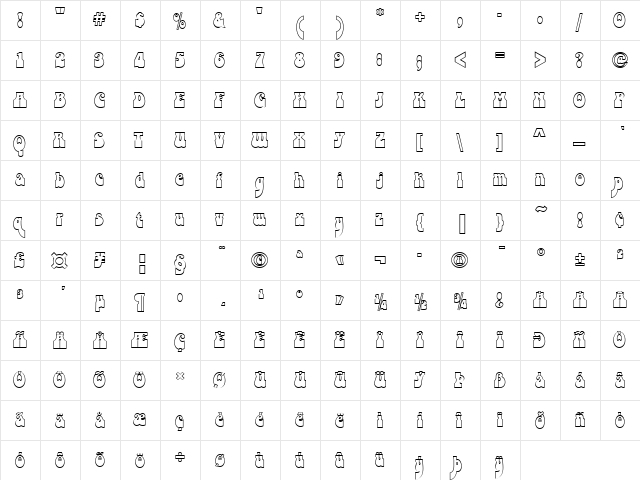
Bottleneck Outline P Regular
Design Context for Bottleneck Outline P Typeface
Bottleneck Outline P brings ornamental detail and strong personality to headlines and identities, where visual impact matters more than quiet functionality.
Font Pairing: Pair with a clean neutral sans-serif for body copy to let Bottleneck Outline P's character lead without overwhelming the composition.
Pro Tip: Use Bottleneck Outline P exclusively at display sizes — it was designed to be seen, not read at length. Let a neutral companion handle body copy.